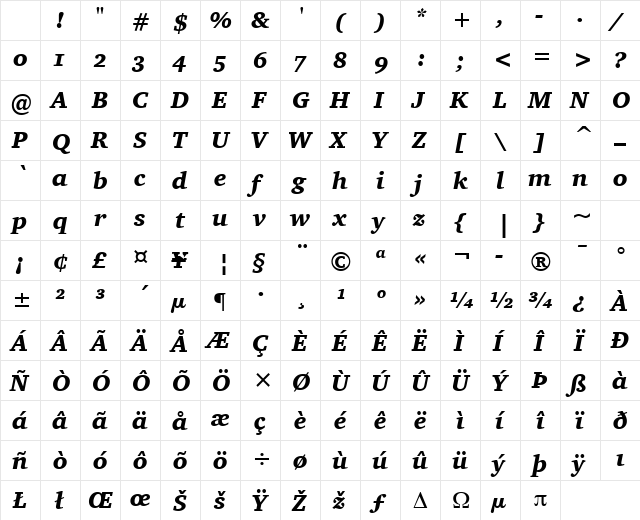
Complete Charter OS ITC TT BlackItalic glyph index. Displaying only characters natively supported by Charter OS ITC TT BlackItalic font.
Charter OS ITC TT is a composed and adaptable typeface that performs quietly and consistently across a wide range of design contexts. The slanted form adds forward momentum and visual energy.
Pro Tip: Use Charter OS ITC TT for emphasis, pull quotes, and subheadings where its slanted energy can add rhythm to the layout.